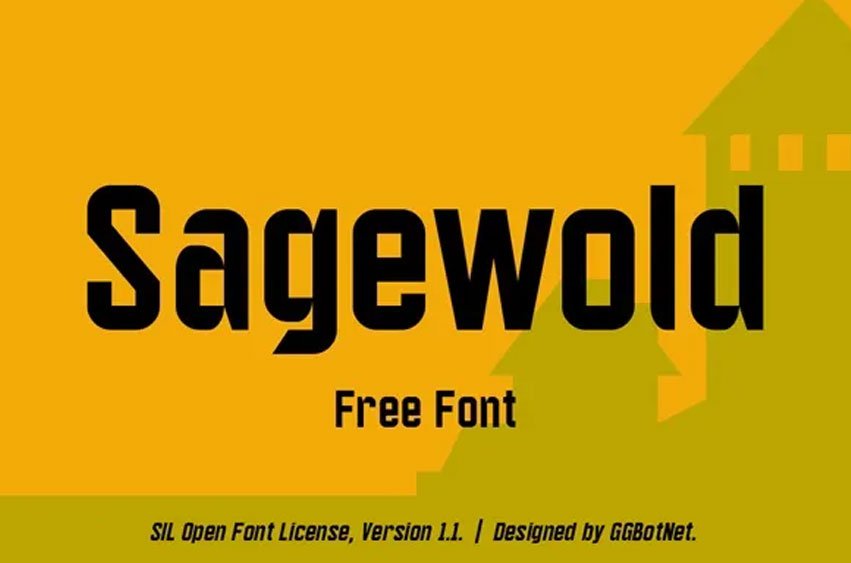
Sagewold Font is a free modern and sporty typography with sans serif display design that delivers modern and energetic feel.
This font is both powerful and flexible, and can be used across many different projects including logos, posters, clothing, merchandise, and billboards. Its sturdy and minimalistic typography is easy to read and. perfect for bold statements and calls to action.